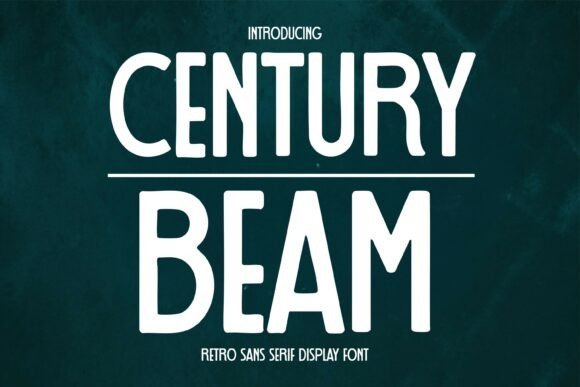
Unleashing the Power of Retro Chic: The Century Beam Font
Have you ever stumbled upon an old vintage poster, and suddenly, you’re transported to a bygone era of optimism and creativity? That’s exactly the kind of magic the Century Beam Font brings to your designs. This bold, retro sans-serif display typeface is a masterclass in blending classic style with modern readability.
Perfect for a wide range of applications, from posters and menus to cafe branding and product packaging, the Century Beam Font is a valuable addition to any designer’s toolkit. Its clarity and versatility make it an ideal choice for Cricut, Silhouette, Canva, Illustrator, and Procreate users, ensuring that your designs stand out with a timeless and stylish look.
- Unique Characteristic: Century Beam Font features a unique blend of traditional and modern design elements, making it ideal for use in a variety of applications, including publishing, advertising, and branding.
Century Beam Font Review
As a designer, I’ve had the chance to work with the Century Beam font, and here’s my honest review.
- Unique style: Century Beam has a distinct, classic look that’s reminiscent of vintage typography.
- Good legibility: The font is clear and easy to read, even at smaller sizes.
- Large character set: The font includes a wide range of characters, including accented letters and symbols.
- Not ideal for body text: While Century Beam is great for headlines and titles, it’s not the best choice for large blocks of text due to its ornate style.
- Limited versatility: The font’s classic look can feel a bit stiff and unadaptable in certain design contexts.
- Some character spacing issues: In some cases, the font’s letter spacing can feel a bit inconsistent.
Overall impression
While Century Beam has its limitations, it’s a solid choice for designers looking for a unique, classic font. Its strengths in terms of legibility and character set make it a great option for headlines and titles. However, it may not be the best fit for larger blocks of text or more modern design styles.
The Century Beam Font is suitable for a variety of use cases, including:
- Business cards and stationery
- Infographics and visual aids
- Web design and digital marketing
Alternatives to Century Beam Font
Playfair Display is an elegant, luxurious serif font that works well for titles and headings. It’s ideal for formal and high-end designs, such as wedding invitations or luxury product branding.
Compared to Century Beam Font, Playfair Display has a more ornate and refined feel, making it suitable for designs that require sophistication and glamour.
Didot is a classic serif font that exudes elegance and sophistication. It’s perfect for designs that require a touch of luxury and refinement, such as high-end fashion or fine art.